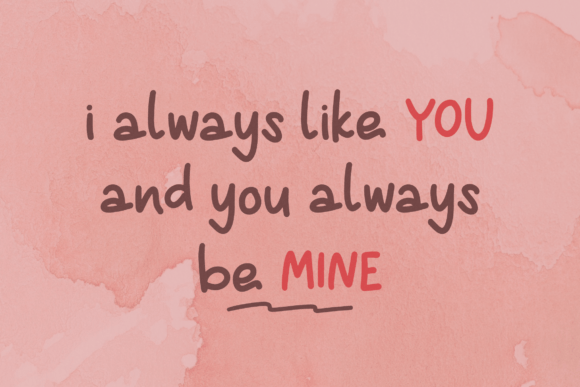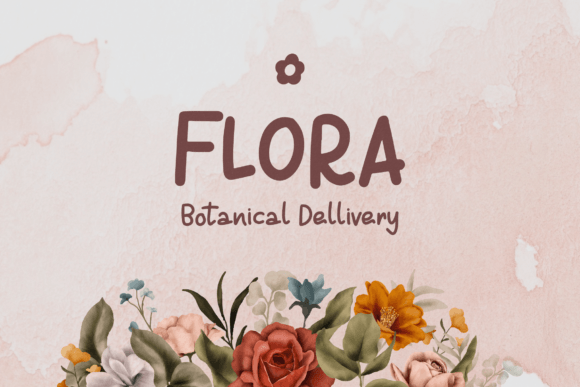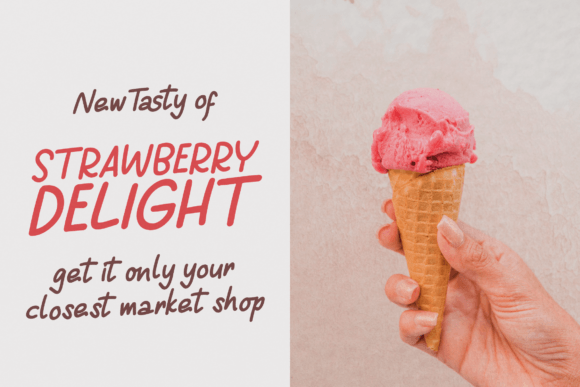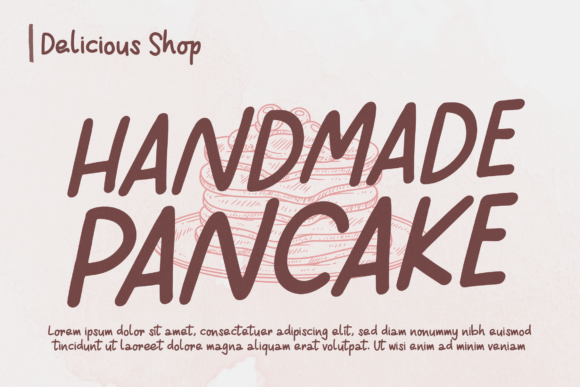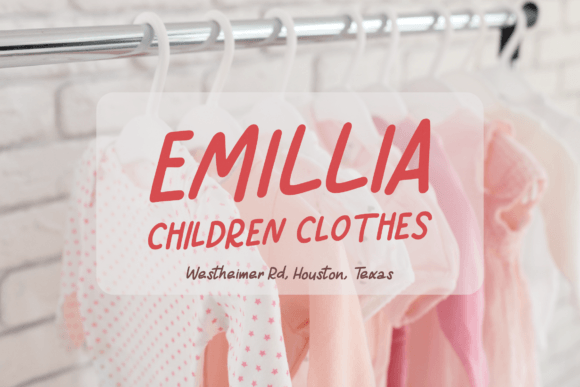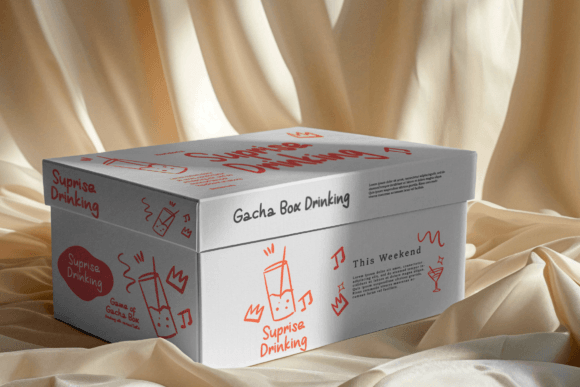
Introducing Beginning Joy Font: A Charming Hand-Drawn Delight
In the world of typography, fonts play a crucial role in conveying emotions and setting the tone for various projects. For designers and crafters seeking a unique and playful touch, the Beginning Joy Font is an excellent choice. This charming, hand-drawn font boasts a smooth, flowing style that instantly adds a personal and friendly feel to any design.
The Characteristics of Beginning Joy Font
Beginning Joy Font features a monoline design, which gives it a distinctive and modern look. The smooth lines and curves of this font create a sense of fluidity, making it perfect for designs that require a touch of elegance and sophistication. The hand-drawn nature of this font adds a human touch, making it ideal for projects that require a personal and emotional connection.
Perfect for Various Projects
The versatility of Beginning Joy Font makes it suitable for a wide range of projects. Whether you’re designing:
- Invitations: Add a touch of warmth and personality to your invitations, making them truly special and memorable.
- Quotes: Use Beginning Joy Font to give your quotes a friendly and approachable tone, perfect for social media posts, blogs, or marketing materials.
- Branding Materials: Incorporate this font into your brand’s identity to convey a sense of friendliness and approachability.
- Crafting Projects: Add a personal touch to your crafting projects, such as handmade cards, scrapbooking, or DIY tutorials.
Why Choose Beginning Joy Font?
With so many fonts available, why choose Beginning Joy Font? Here are a few compelling reasons:
- Unique and Playful: This font’s hand-drawn design and monoline style make it stand out from more traditional fonts.
- Easy to Read: The smooth lines and clear lettering ensure that your text remains easy to read, even at smaller sizes.
- Versatile: Suitable for a wide range of projects, from digital designs to print materials.
- Time-Saving: With Beginning Joy Font, you can quickly add a professional and polished touch to your designs without spending hours on typography.
Tips for Using Beginning Joy Font
To get the most out of Beginning Joy Font, consider the following tips:
- Experiment with Colors: Play with different colors to find the perfect match for your design and brand.
- Mix and Match: Combine Beginning Joy Font with other fonts to create a unique and visually appealing design.
- Pay Attention to Spacing: Adjust the spacing between letters and lines to ensure your text flows smoothly and is easy to read.
Beginning Joy Font is a charming and versatile font that can add a personal touch to your designs. Its smooth, flowing style and monoline design make it perfect for a wide range of projects, from invitations and quotes to branding materials and crafting projects. With its unique and playful look, ease of use, and time-saving benefits, Beginning Joy Font is an excellent choice for designers and crafters seeking to elevate their designs.